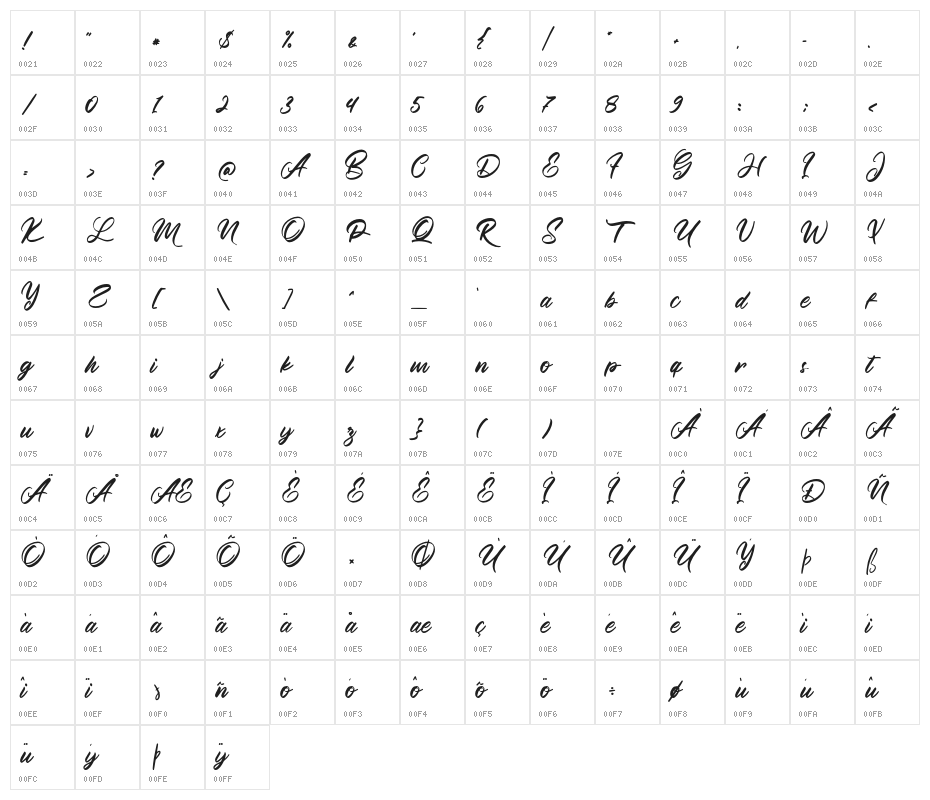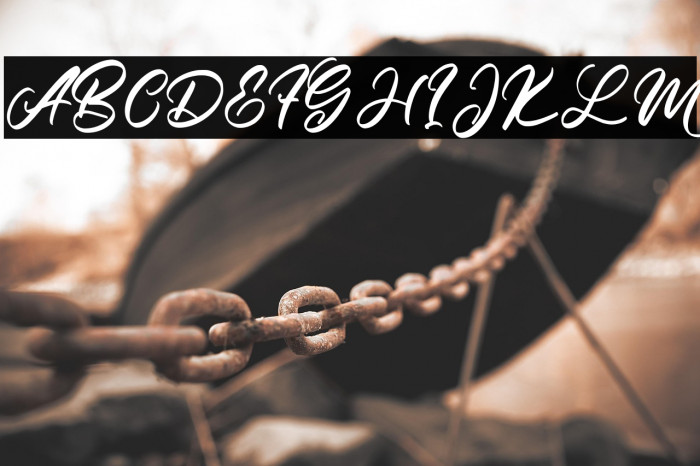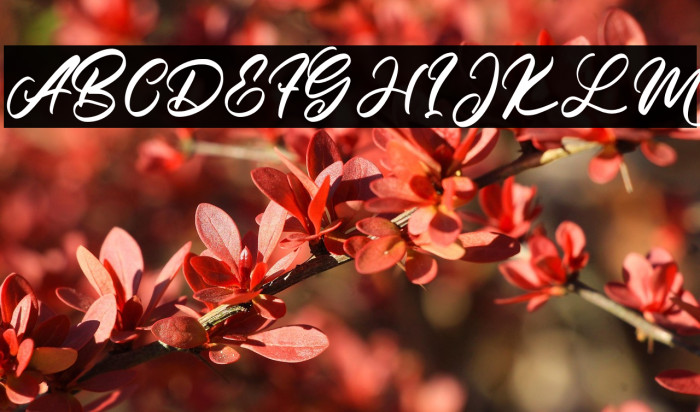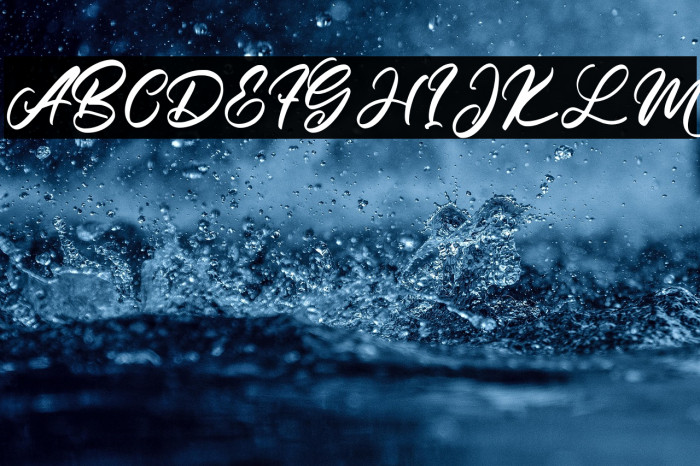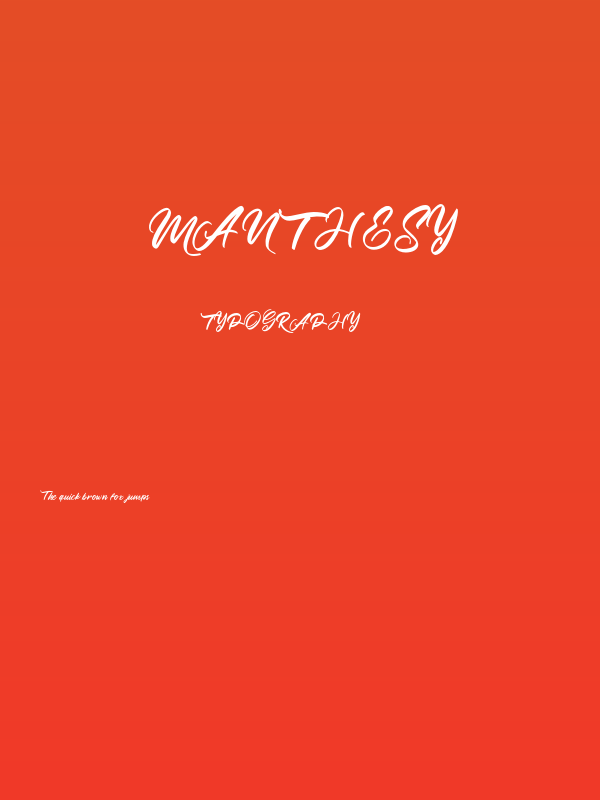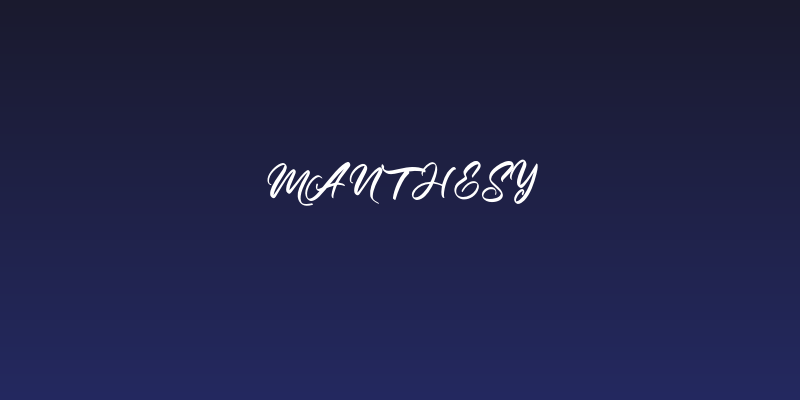
Manthesy Font
Manthesy Description
This font is a stylish and elegant script typeface that features fluid, cursive strokes with a calligraphic flair. The uppercase letters are bold and sweeping, with intricate loops and curves that give a sense of movement and grace. The lowercase letters maintain a consistent flow, connecting smoothly to create a harmonious and cohesive look. Numbers and special characters are designed with the same attention to detail, ensuring a uniform appearance across all text. The overall design is both sophisticated and playful, making it suitable for a variety of creative applications.